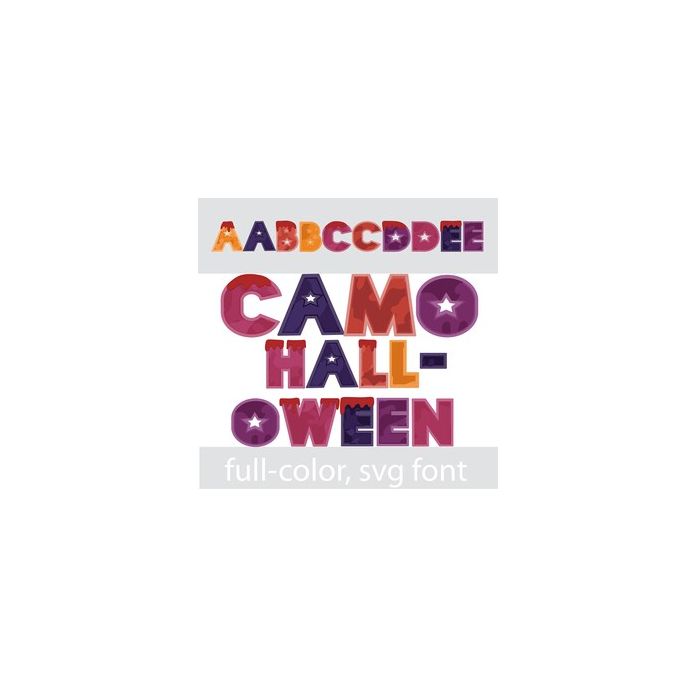
This full-color font features a camo-style font in a Halloween color palette with a number of letters dripping in blood. There is an alt case w/ additional colors you can access through your system or Silhouette's glyph map.